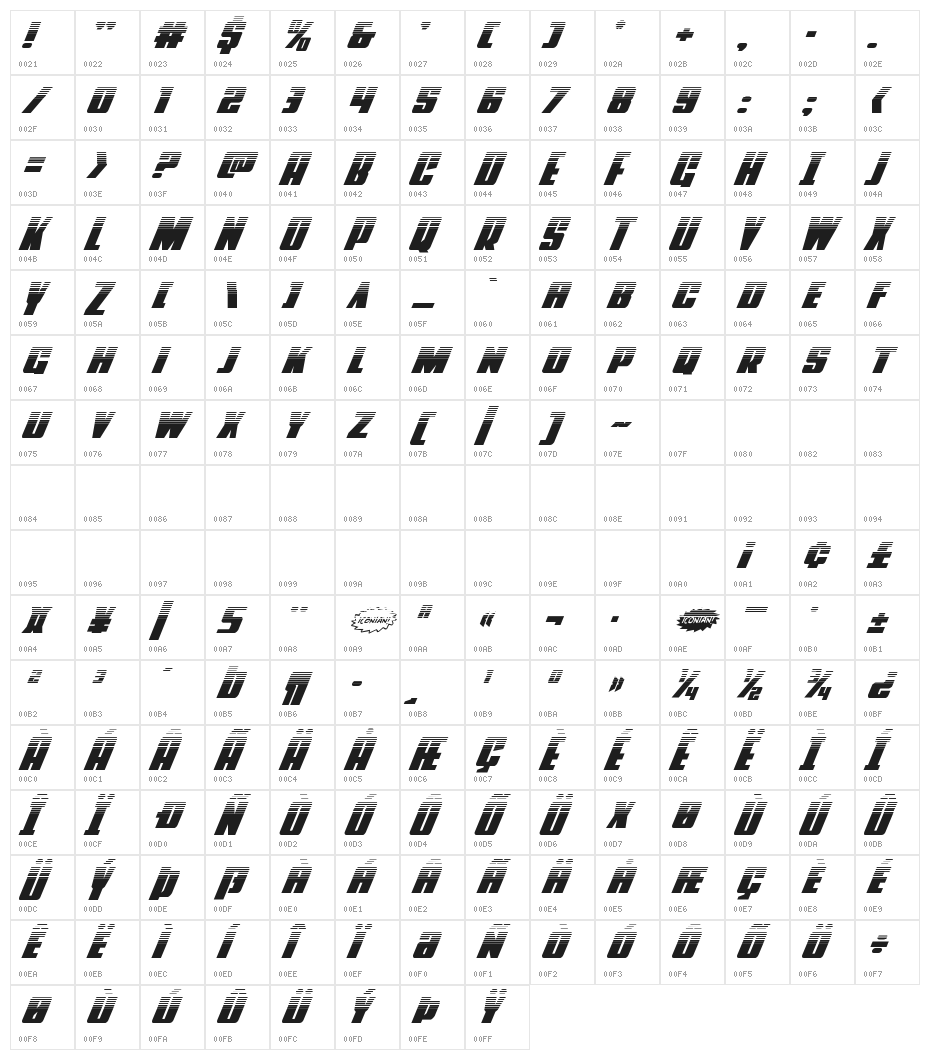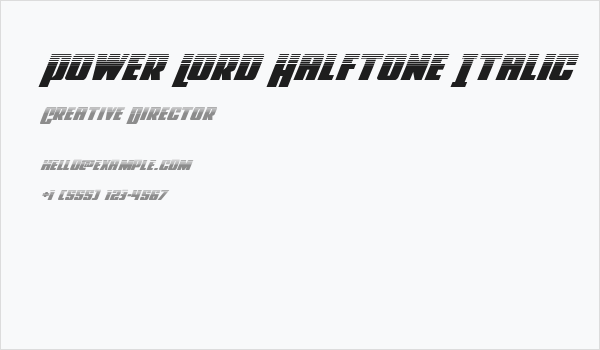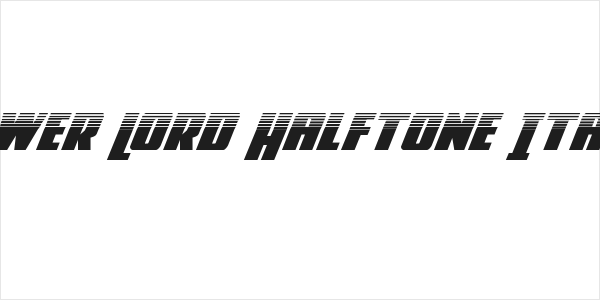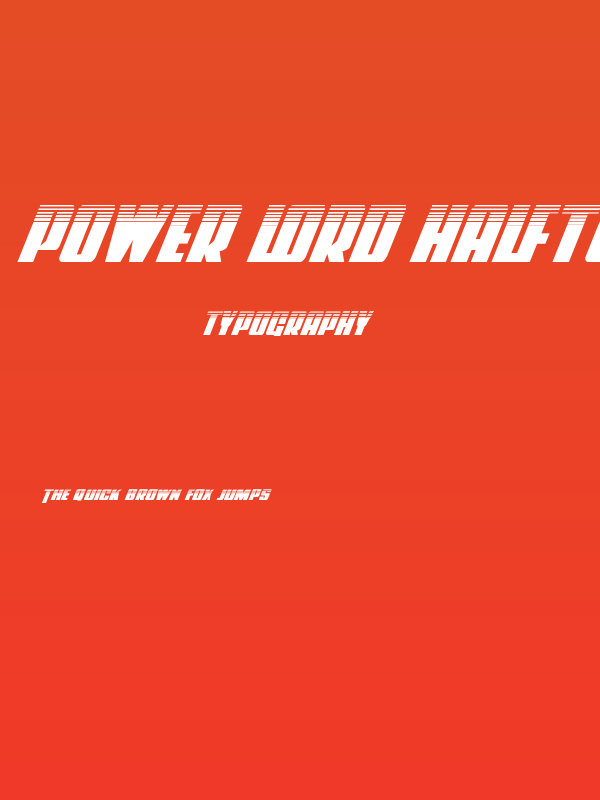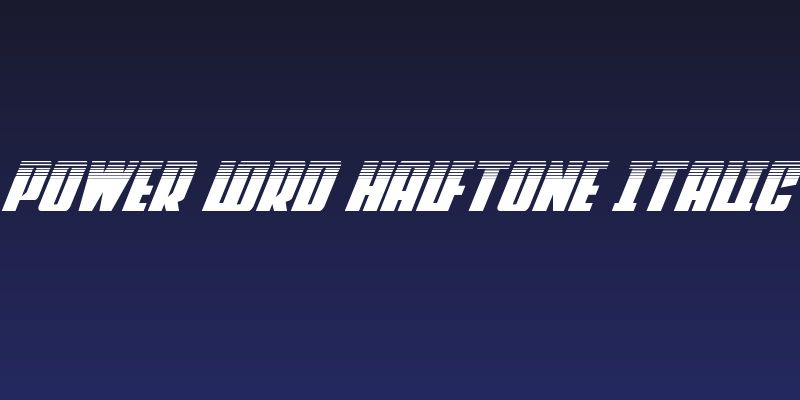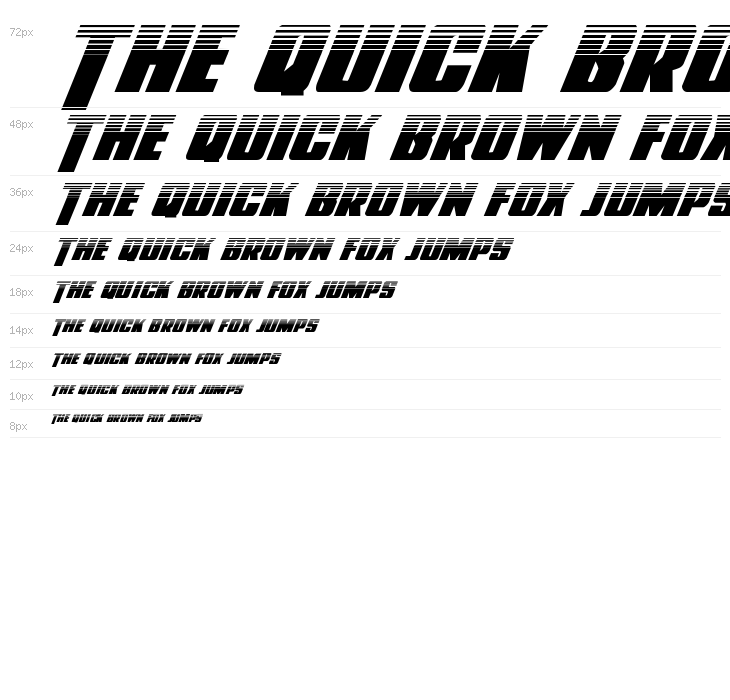
Power Lord Halftone Italic Font
Power Lord Halftone Italic Description
This font features a bold, dynamic style with a halftone effect that gives it a futuristic and energetic appearance. The characters are italicized, adding a sense of motion and speed. The uppercase and lowercase letters, along with numbers and special characters, are designed with a consistent slanted orientation. The halftone lines create a gradient effect, enhancing the visual impact and making it suitable for attention-grabbing designs. The overall look is modern and edgy, perfect for projects that require a strong visual statement.
| Proposed Projects | Ideal for sports branding, video game titles, posters, and any design needing a bold, modern touch. |